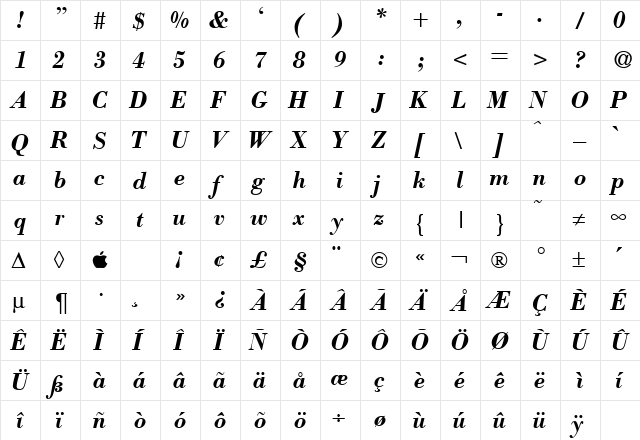
ModernBodoni BoldItalic Font Preview
Design Context for ModernBodoni Typeface
ModernBodoni takes a measured approach to typography — its balanced proportions and neutral character make it a reliable workhorse for both digital and print work. The dynamic lean of this cut emphasises speed and emphasis in any layout. Its bold stroke weight gives it real presence on the page.
Pro Tip: Try ModernBodoni for annotation and caption copy alongside an upright companion — the contrast in angle creates a dynamic but ordered typographic system.